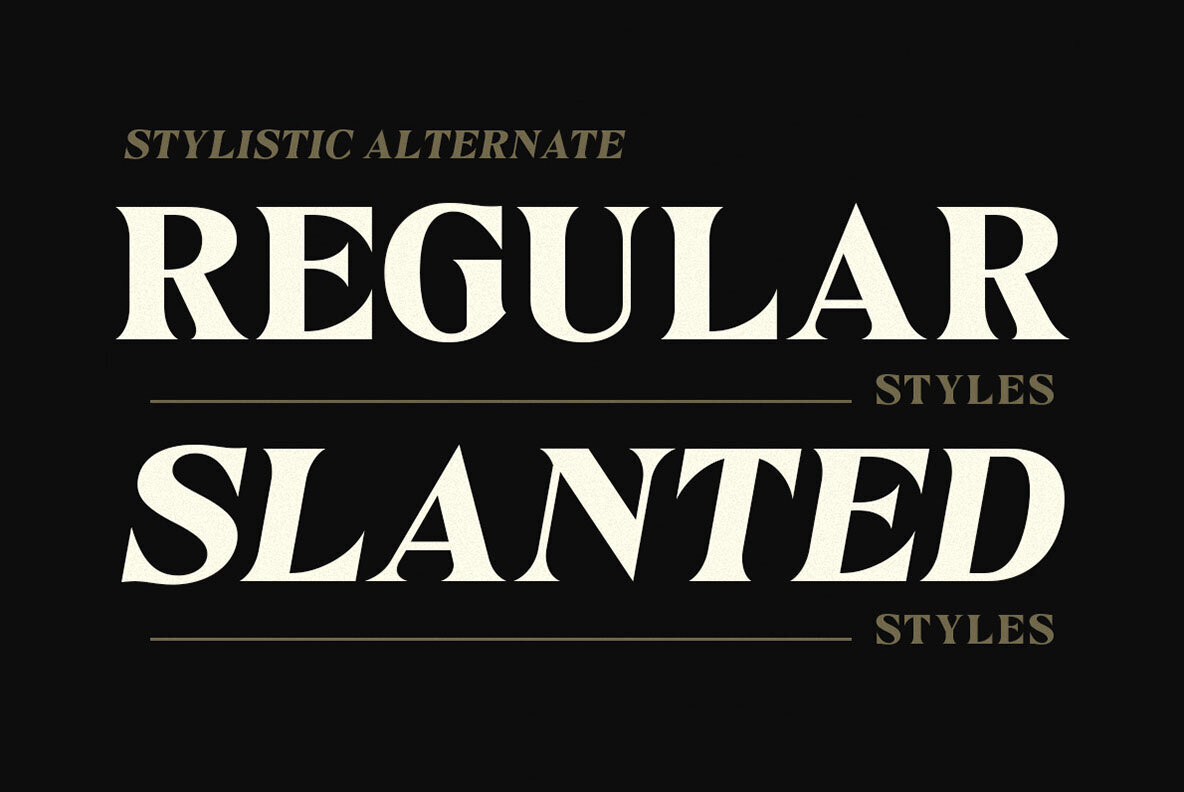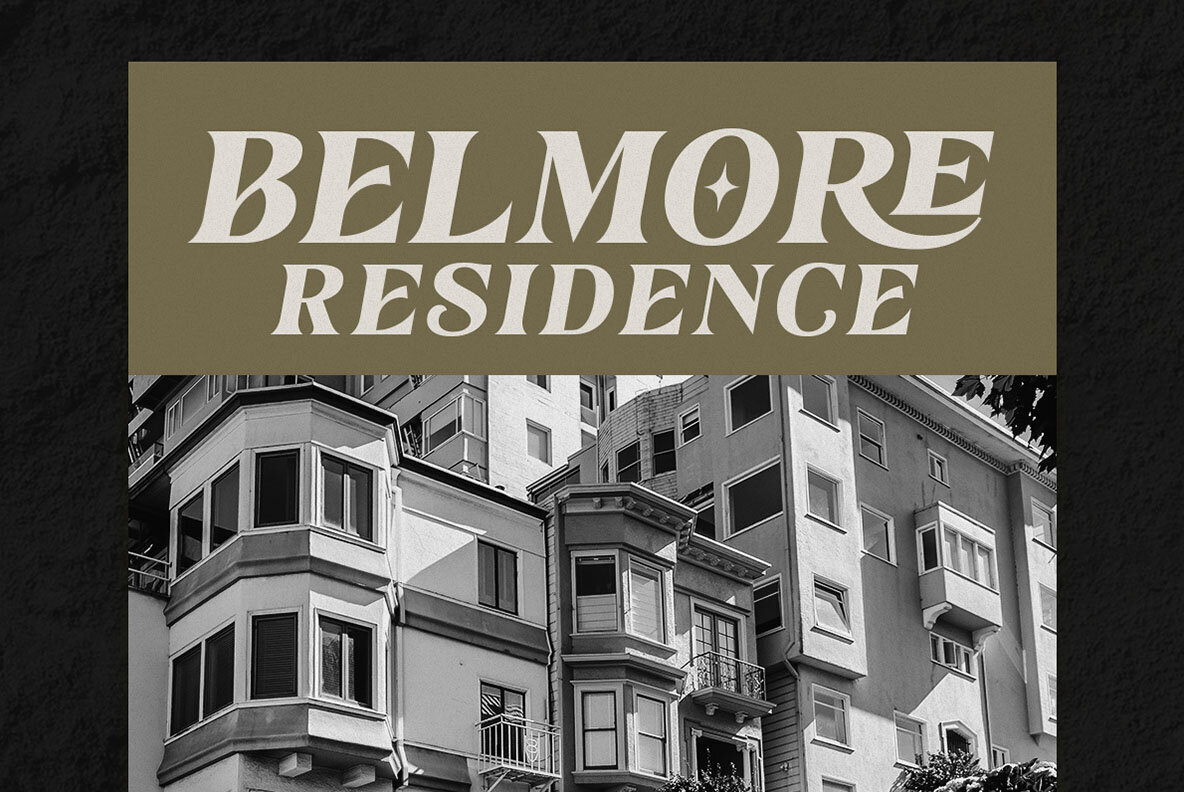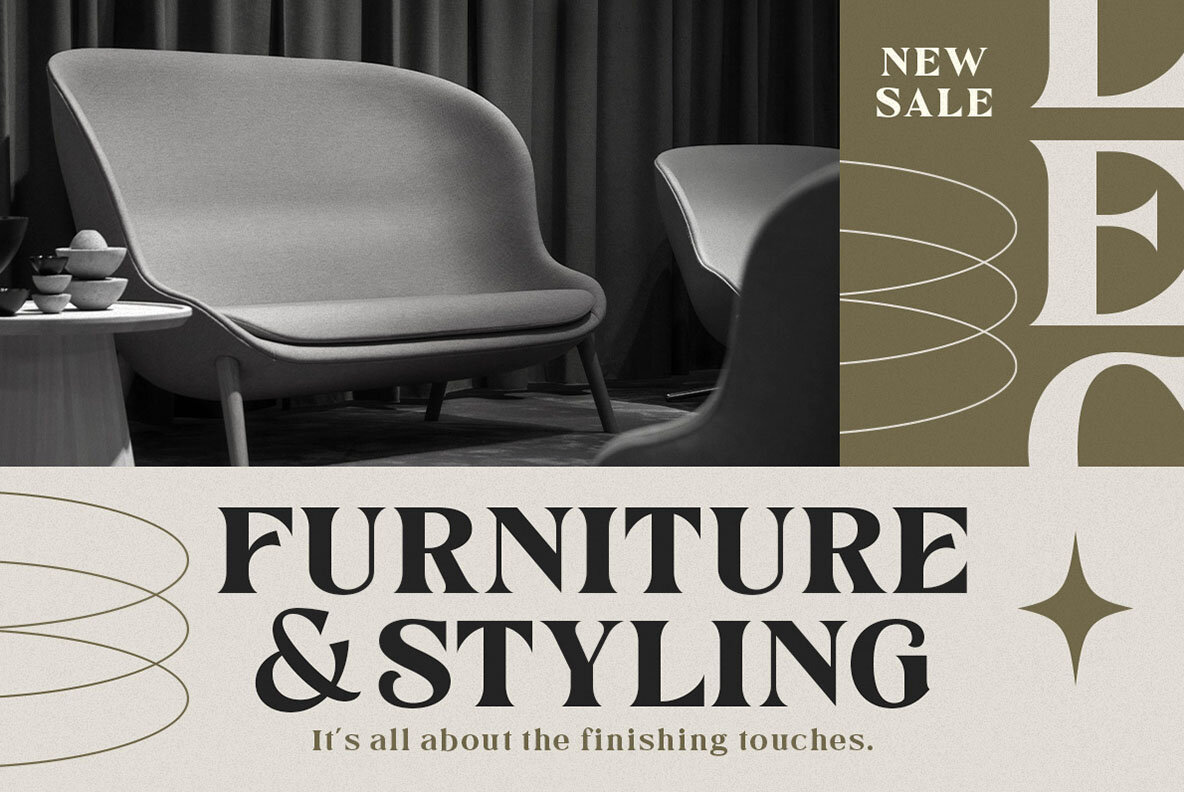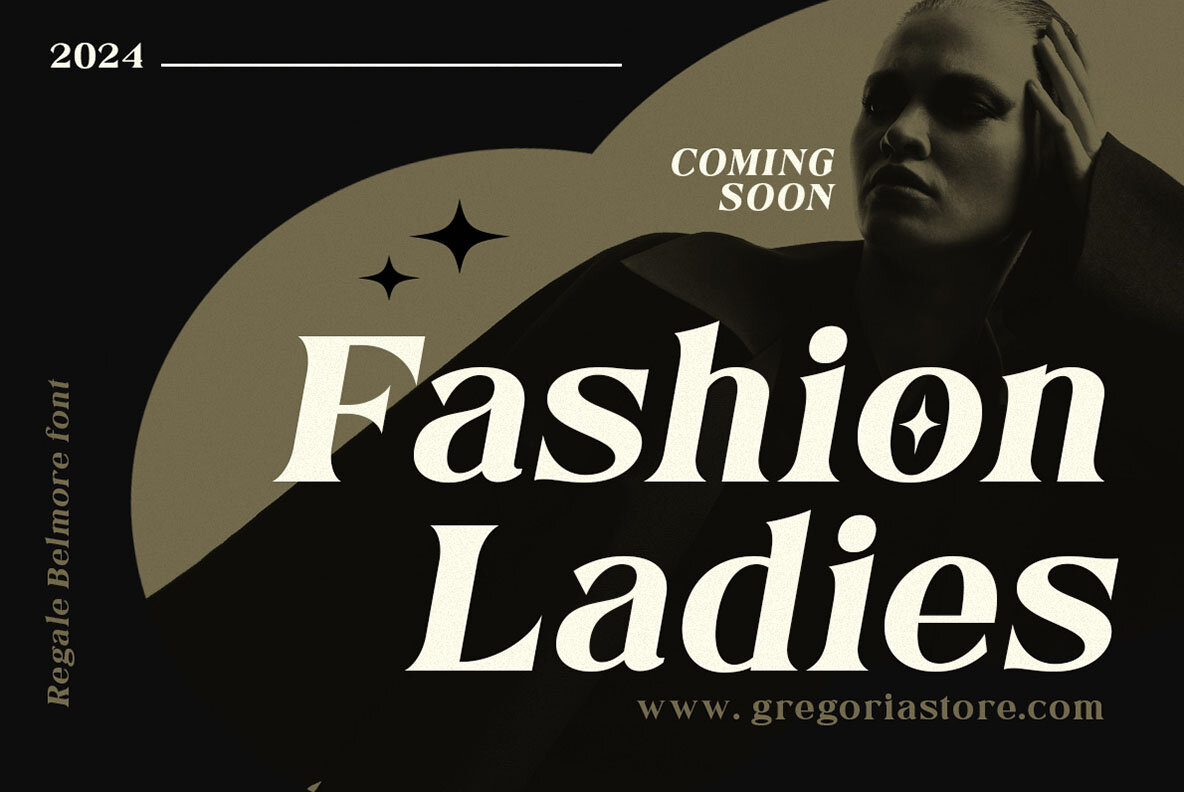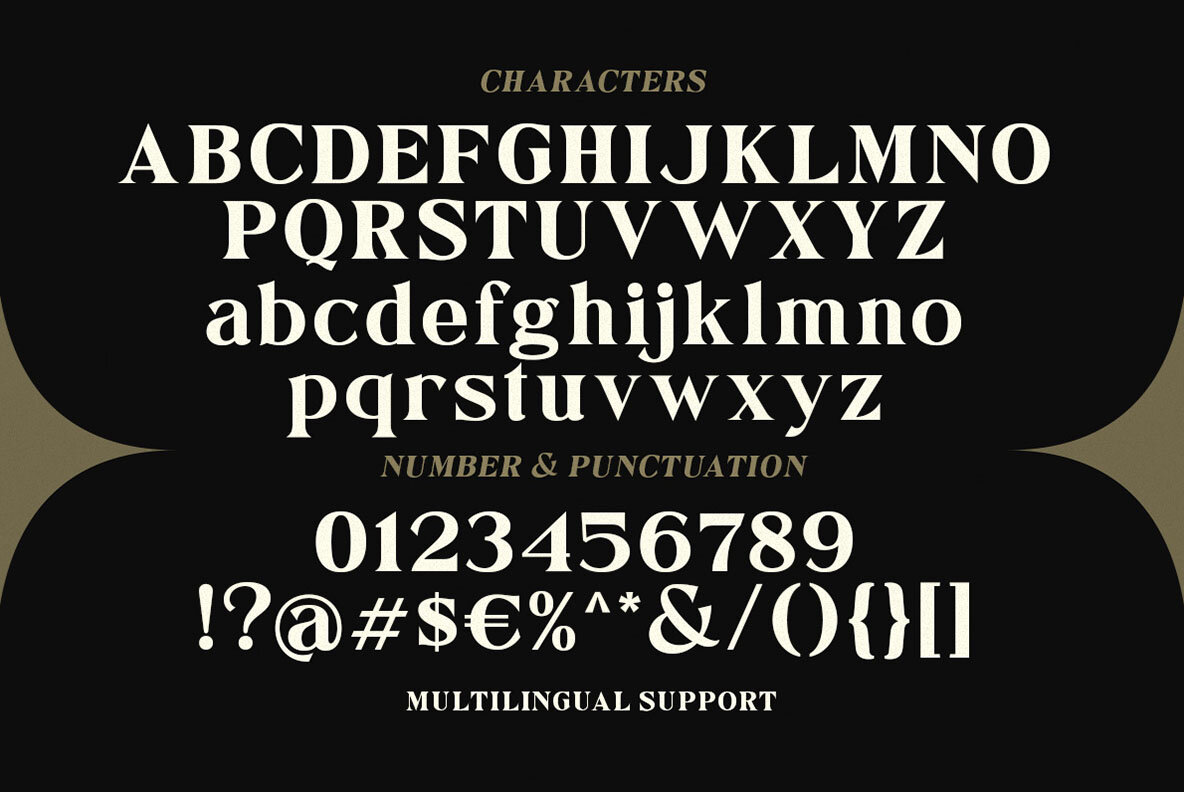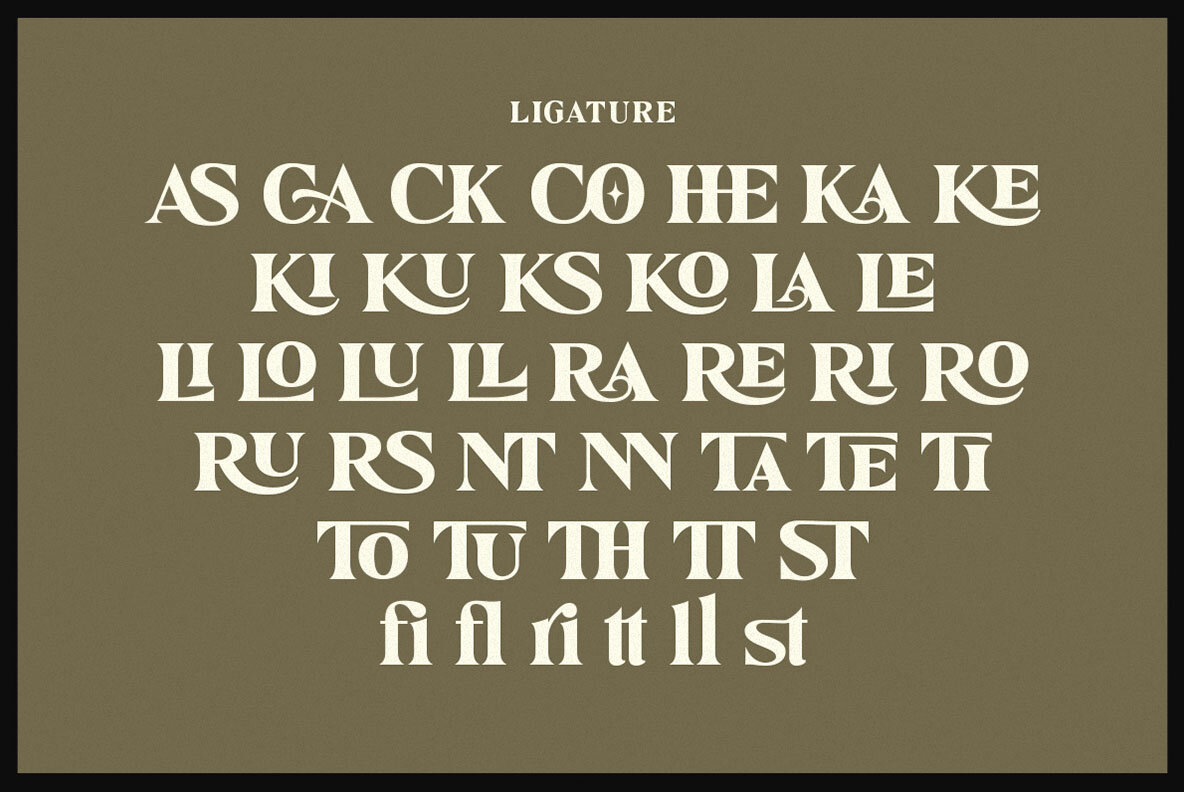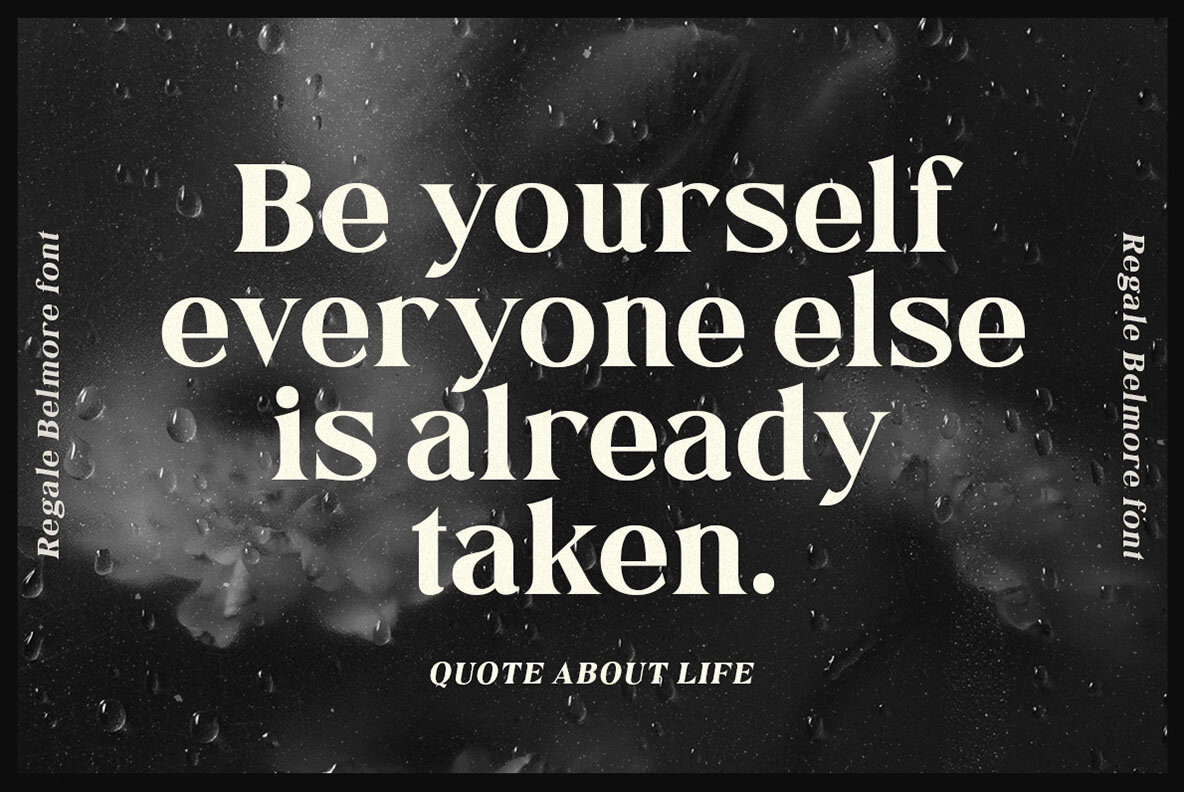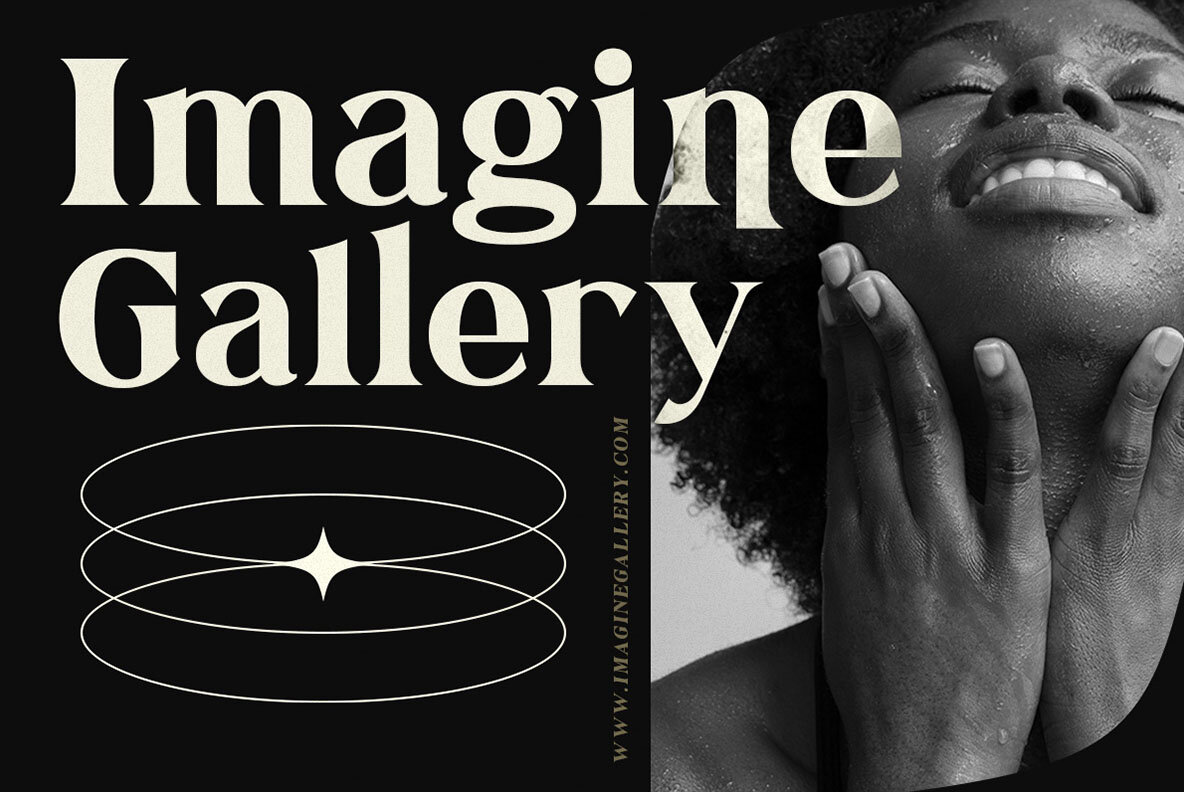
Regale Belmore Font
The Regale Belmore font by Letterhend Studio offers an elegant serif design available in both regular and slant styles. It's crafted to enhance various formal applications including logos, invitations, labels, magazines, books, greeting cards, wedding cards, packaging, fashion materials, stationery, novels, and advertising. For the best experience, it is recommended to use software that supports OpenType features and Glyphs panels, such as Adobe applications and Corel Draw. This will allow full access to all glyph variations for enhanced creativity.Regale Belmore: Organic Serif with Modern Flair